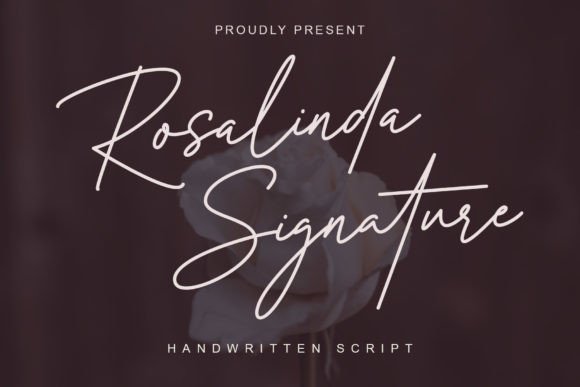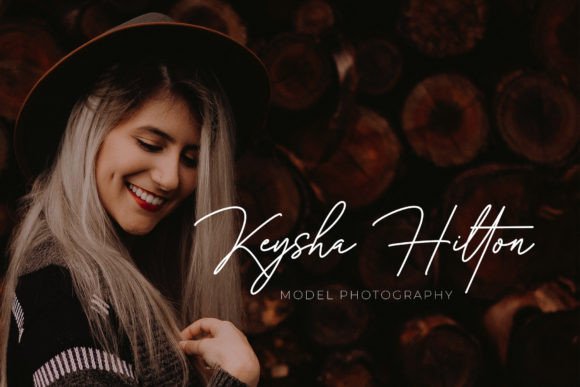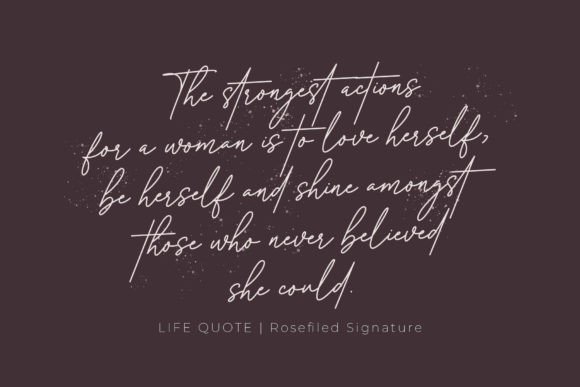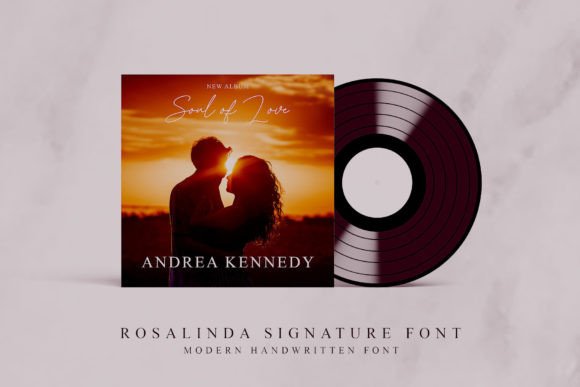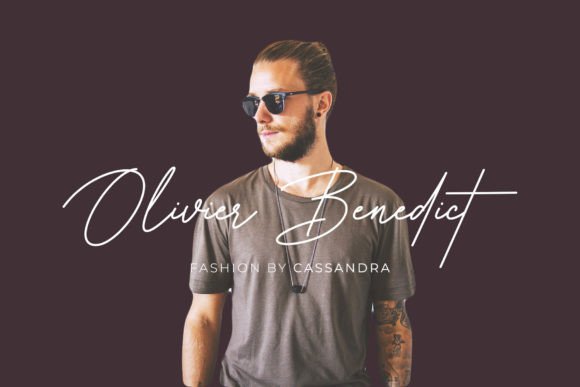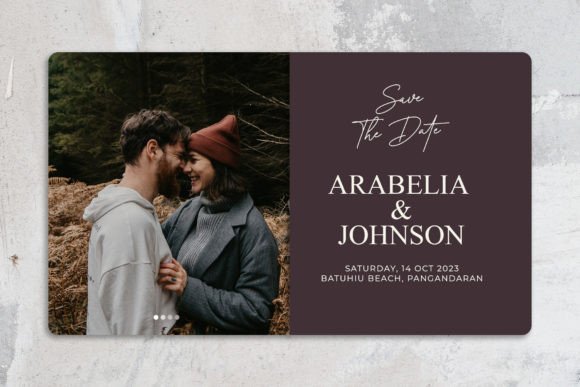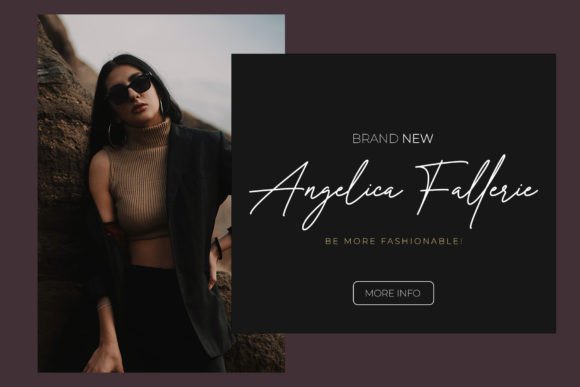
Rosalinda Signature Font
About Rosalinda Signature Font
Rosalinda Signature is a delicate, elegant, and flowing handwritten font. It has beautiful and well-balanced characters and as a result, it matches a wide pool of designs.